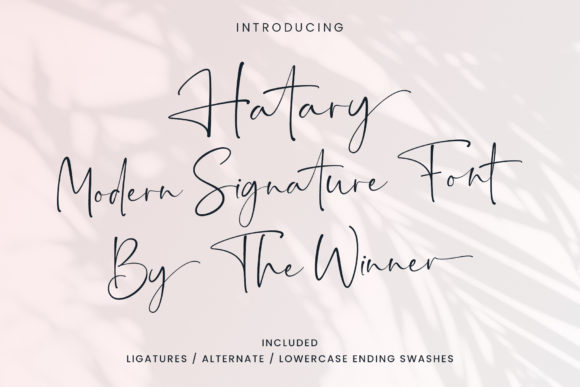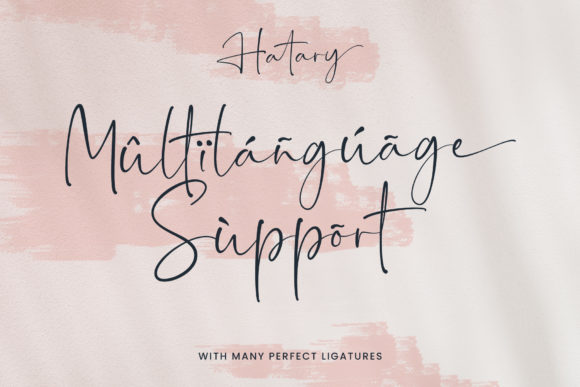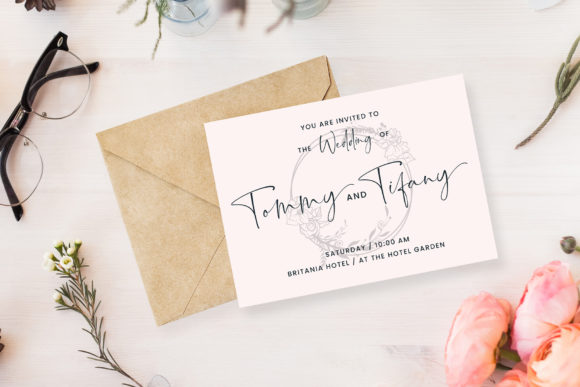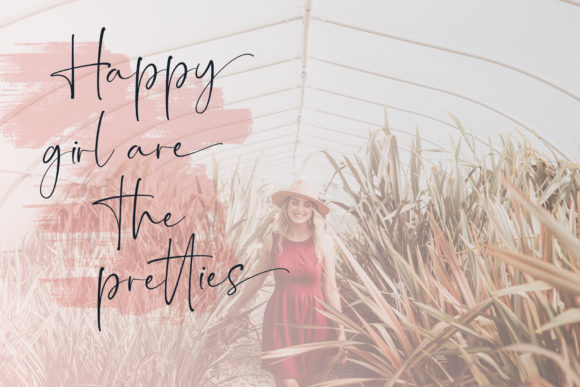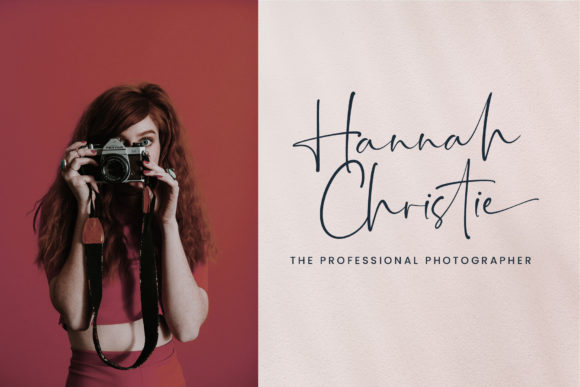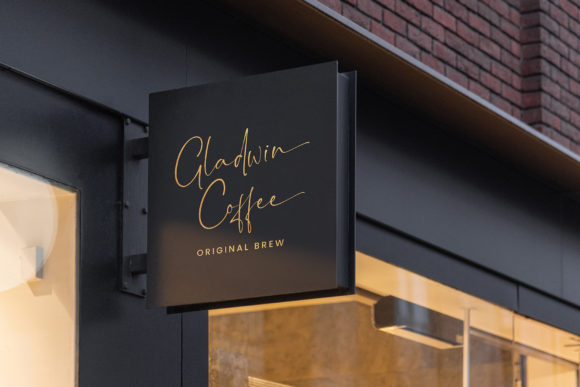
Introducing Hatary Font: Elevate Your Designs with Elegance and Sophistication
Are you a designer or crafter looking for a font that can add a touch of elegance and sophistication to your creative projects? Look no further than Hatary Font, a stunning script font that is perfect for a wide range of applications. From logos and branding to invitations, posters, apparel, and more, Hatary Font is the perfect choice for anyone looking to make their designs come alive.
What Makes Hatary Font So Special?
Hatary Font is a gorgeous script font that is designed to add a touch of luxury and refinement to any design project. With its flowing lines, elegant curves, and sophisticated style, this font is sure to impress. Whether you’re working on a logo, a branding project, or a creative design, Hatary Font is the perfect choice for anyone looking to add a touch of class and elegance.
Uses for Hatary Font
One of the best things about Hatary Font is its versatility. This font can be used for a wide range of applications, including:
- Logos and branding: Create a stunning logo or brand identity with Hatary Font, perfect for businesses, organizations, and individuals looking to make a statement.
- Invitations: Add a touch of elegance to your wedding invitations, birthday party invites, or other special event invitations with Hatary Font.
- Posters: Create eye-catching posters for events, promotions, or advertising campaigns with Hatary Font.
- Apparel: Design stylish and sophisticated apparel, such as t-shirts, hoodies, or tote bags, with Hatary Font.
- Layout design: Use Hatary Font to add a touch of elegance to your layout designs, including brochures, flyers, and more.
- Taglines: Create memorable taglines for businesses, products, or services with Hatary Font.
Why Choose Hatary Font?
So why choose Hatary Font for your design projects? Here are just a few reasons:
- Elegant and sophisticated style: Hatary Font has a unique and refined style that is sure to impress.
- Versatile: This font can be used for a wide range of applications, from logos and branding to invitations and posters.
- Easy to read: Despite its elegant style, Hatary Font is easy to read and understand, making it perfect for body text and headlines.
- High-quality: Hatary Font is a high-quality font that is designed to deliver exceptional results.
Tips for Using Hatary Font
Here are a few tips for using Hatary Font in your design projects:
- Use it sparingly: While Hatary Font is elegant and sophisticated, it can be overwhelming if used too much. Use it sparingly to add a touch of elegance to your designs.
- Pair it with other fonts: Hatary Font pairs well with other fonts, such as sans-serif fonts or serif fonts. Experiment with different font combinations to find the perfect look for your design.
- Adjust the size and color: Adjust the size and color of Hatary Font to suit your design needs. This font can be used for both headlines and body text.
| Font Name | Hatary Font |
| Author | The1stWinner |